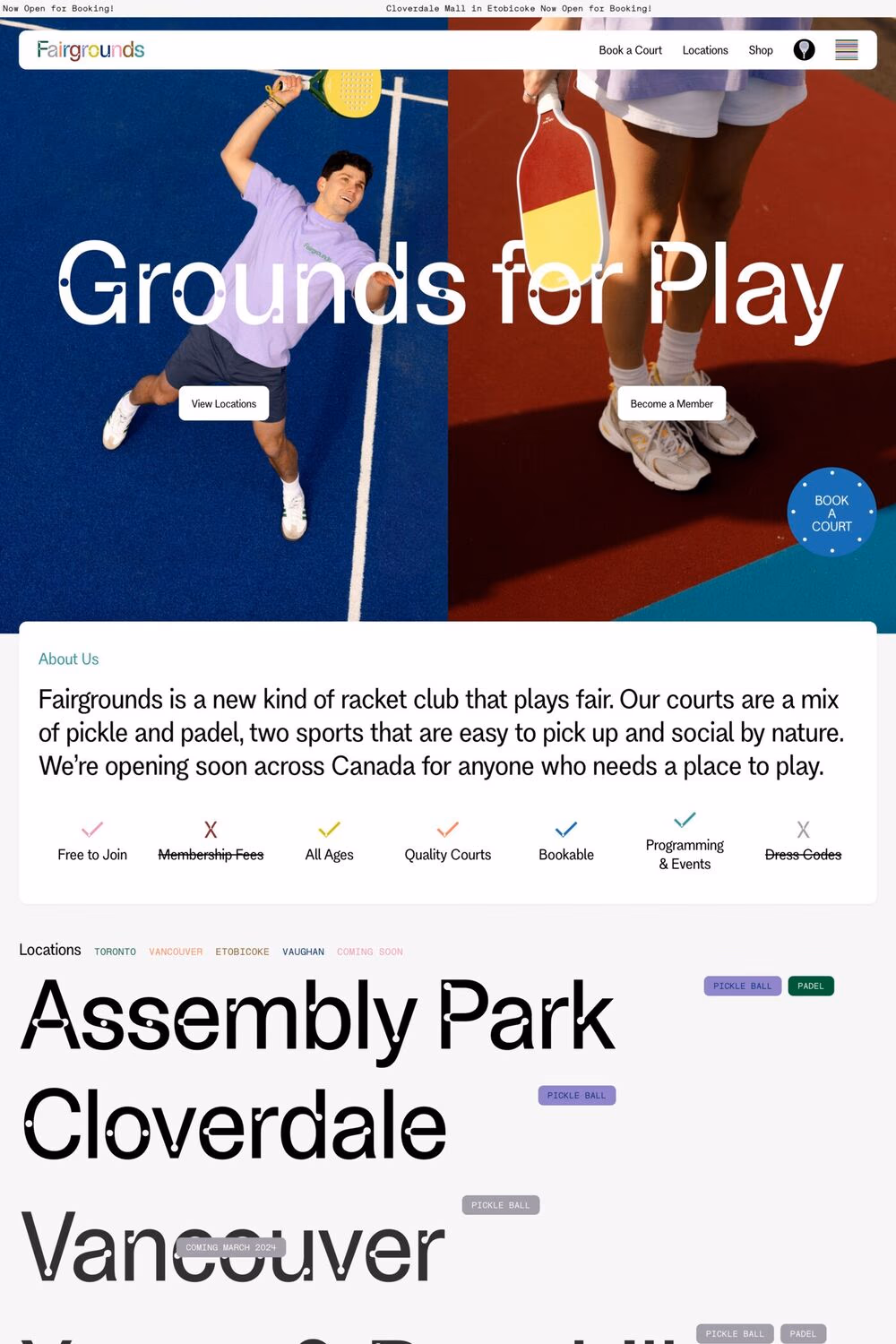
Maxeville is a sans-serif typeface from SM Foundry.
Maxeville is a neo-grotesk typeface with geometric properties, inspired by the visual language that accompanied art and design movements from the early 20th century, such as De Stijl (The Netherlands) and Union des Artistes Modernes (France). Concentrating on the work of Gerrit Rietveld and Jean Prouvé.